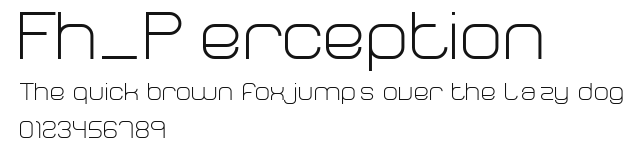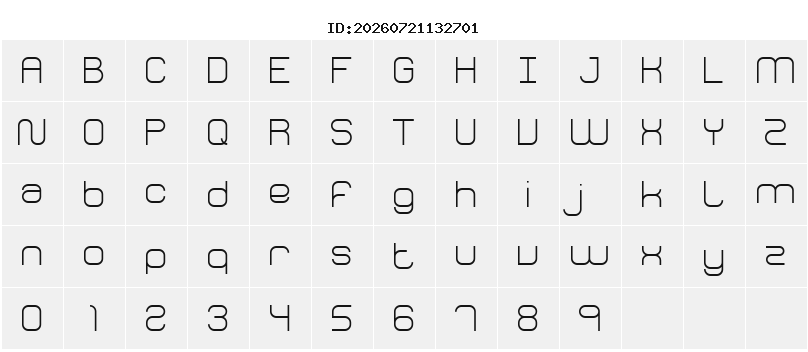
Fh_Perception Preview
• Font Name: Fh_Perception
• Font ID: DanMeyer(Fictionalhead): Fh_Perception: 2007
• Full Font Name: Fh_Perception
• Version: Version 1.000 2007 initial release
• PostScript Name: Fh_Perception
• Designer: Dan Meyer (Fictionalhead)
• Manufacturer: Dan Meyer (Fictionalhead)
About Fh_Perception.ttf
Fh_Perception.ttf is a modern, elegant sans-serif font designed for ultimate readability and visual harmony. Perfect for branding, headlines, web design, and print materials.